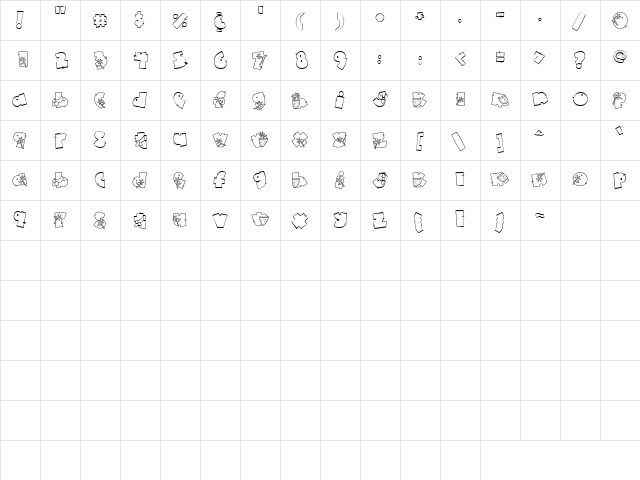
Doodle Denim Regular Font Preview
Doodle Denim Regular
Design Context for Doodle Denim Typeface
Doodle Denim is a composed and adaptable typeface that performs quietly and consistently across a wide range of design contexts.